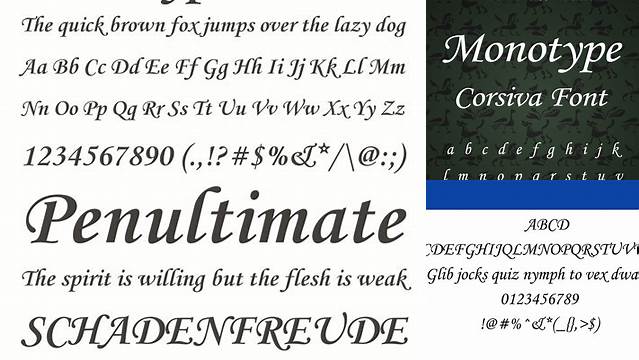
Are you looking to download the Monotype Corsiva Italic font, guys? Well, you've come to the right place! This article is your ultimate guide to everything about this beautiful font. We'll cover where to find it, how to install it, and even some cool ways you can use it in your designs. So, buckle up, and let's dive into the world of Monotype Corsiva Italic! This font is known for its elegant, flowing script style, making it a popular choice for invitations, headings, and anything that needs a touch of sophistication. Its popularity is not a surprise, given its resemblance to handwritten calligraphy. Ready to learn more? Let's go.
What is Monotype Corsiva Italic? Unveiling the Beauty
First off, what exactly is Monotype Corsiva Italic? It's a serif typeface designed by Patricia Lillie and released by Monotype in 1993. It's an italic font, meaning the letters are slanted, which gives it that graceful, flowing appearance. The design is based on a handwritten script, evoking a sense of elegance, and personal touch. The font's design is characterized by its connected letters, delicate curves, and subtle flourishes, making it ideal for a variety of creative projects. When using this font, you'll notice that its aesthetic is very attractive. The font is frequently used in contexts where a sense of history or luxury is desired. It is important to note that this font is a classic choice for projects that require a touch of sophistication and charm. The delicate curves and connecting strokes create a visual harmony that captures the eye and invites the reader to engage with the text. Whether you're designing wedding invitations, crafting personalized stationery, or adding a touch of elegance to your website, the Monotype Corsiva Italic font can bring your creative vision to life. The versatility of this font extends to various design applications. Its ability to convey both a sense of tradition and modern elegance makes it an excellent choice for projects that aim to blend classic design principles with contemporary aesthetics. It’s perfect for those moments when you want to add a personal touch, like a handwritten note, to your work. You can use it in headlines, but it really shines in smaller text, where its delicate details can truly shine. It's important to consider the context and your audience when choosing this font, as it may not be the best choice for all projects. So, now you know a bit more about Monotype Corsiva Italic!
- Elegant Script: It's all about that graceful, flowing script style, as we talked about. It looks like real handwriting! Its elegant style makes it perfect for conveying a sense of sophistication and class in any design project. The way the letters connect and flow together gives it a unique and visually appealing quality. This font is often chosen to add a touch of refinement and distinction to different creative projects. This design allows designers to create visually stunning compositions that capture the attention of viewers.
- Italic Style: The slant of the letters adds to the fluidity and elegance. The italic style of the font enhances its visual appeal and makes it a prime choice for designs that require a touch of sophistication and uniqueness. The slant of the characters provides a dynamic and flowing visual rhythm, making the text more inviting and engaging to the eye. This design element helps to bring a sense of movement and grace to the text, making it stand out from other typefaces.
- Versatility: Monotype Corsiva Italic works well in many different contexts. You can use it for invitations, headings, or even small bits of text. The font's versatility makes it appropriate for a variety of creative projects. Its ability to blend with various design styles makes it a popular choice for a range of projects. This allows designers to create cohesive and visually appealing designs. It can be used in numerous applications, adding a unique touch to your projects.
- Readability: While it's a stylish font, it's still readable, especially in larger sizes. This design ensures that the text is not only visually appealing but also easy to understand, making it a great choice for projects where clarity is important. It's designed to be easy to read, especially in larger sizes, so you won't have to worry about people struggling to understand what you've written.